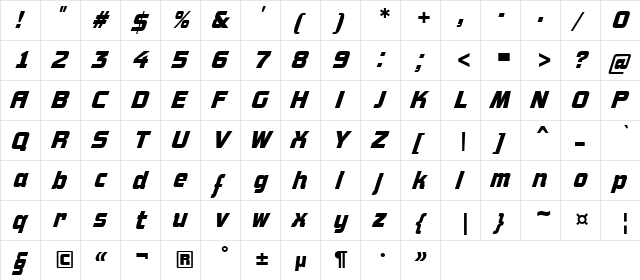
a_ConceptoNr BoldItalic
Design Context for a_ConceptoNr Typeface
a_ConceptoNr is a composed and adaptable typeface that performs quietly and consistently across a wide range of design contexts. Its italic angle brings a sense of urgency and motion to the letterforms. Its bold stroke weight gives it real presence on the page.
Pro Tip: Use a_ConceptoNr for emphasis, pull quotes, and subheadings where its slanted energy can add rhythm to the layout.